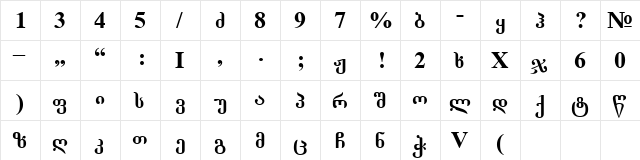
Tbilisuri Normal
Design Context for Tbilisuri Typeface
Tbilisuri takes a measured approach to typography — its balanced proportions and neutral character make it a reliable workhorse for both digital and print work.